1 Google Font Similar to Univers
Univers is a sans-serif font released in 1957. It is classified as a neo-grotesque sans-serif font and was inspired by German typefaces such as Akzidenz-Grotesk.
This typeface is very iconic and recognizable. It carries it's own unique features which makes it hard to find a really good similar looking font.
That being said, I believe that I have found one font that would make for a decent alternative from the Google Fonts library.
The fonts discussed below isn't going to be an exact replacement, but it will give off a similar look and feel. Plus, they are good for any project on a budget.
What Google Fonts are Similar to Univers?
The best Google Font alternatives for Univers are:
- Roboto
Roboto is a very popular sans-serif font available in the Google Fonts library.
It does a good job matching the majority of the lowercase letters. However, you will see differences in the "y" and in the dots for the "j" and "i".
The uppercase is where things start to differ. While many of the letters are similar, there are some major difference in the uppercase that you would be aware of. The "Q" and "G" are the ones that stick out the most to me.
I believe that if you were to use a condensed version of Roboto, you could achieve a similar look and feel.
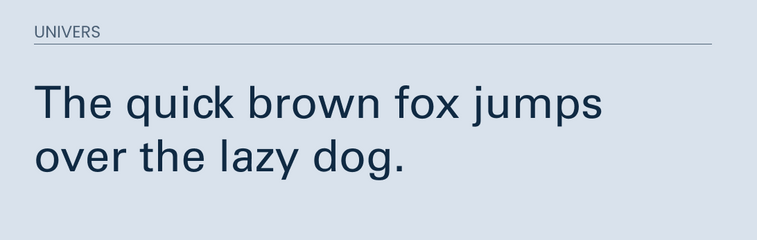
Final Thoughts
Roboto isn't going to be the perfect alternative. However, the condensed version would give a similar look and feel that would allow it to be used as an alternative for any project on a budget.